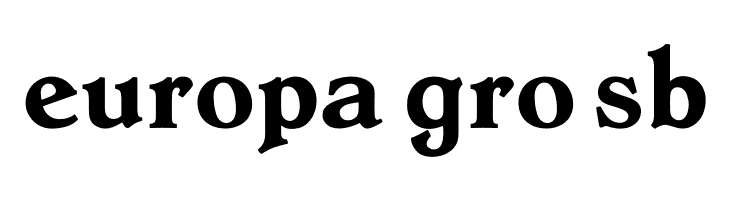
( Fonts by Castcraft Software - opti.netii.net - check the website before use ) A classic serif font with bold strokes and a semi-bold weight, offering elegance and readability. Download 736 Downloads@WebFont